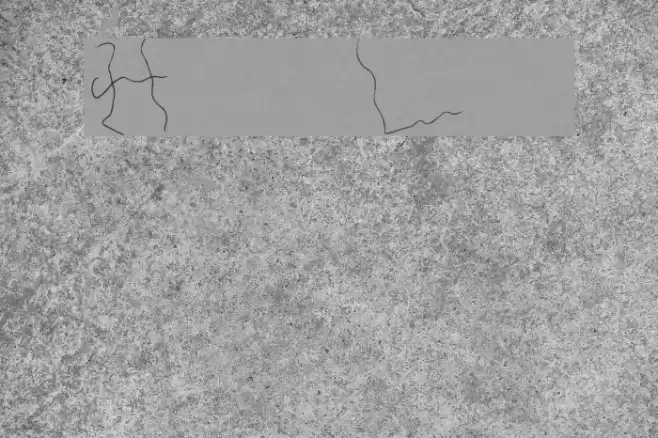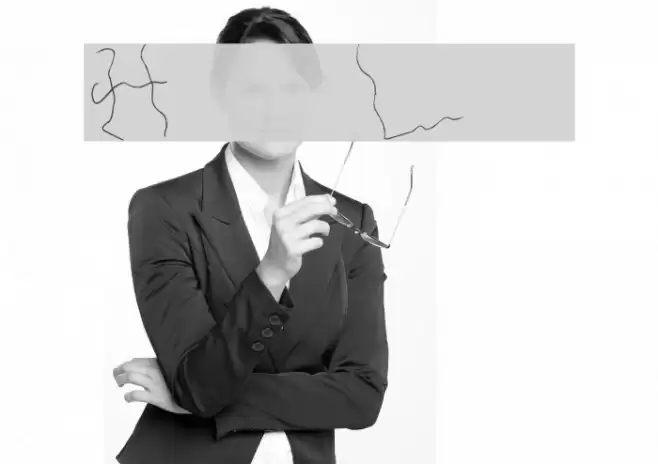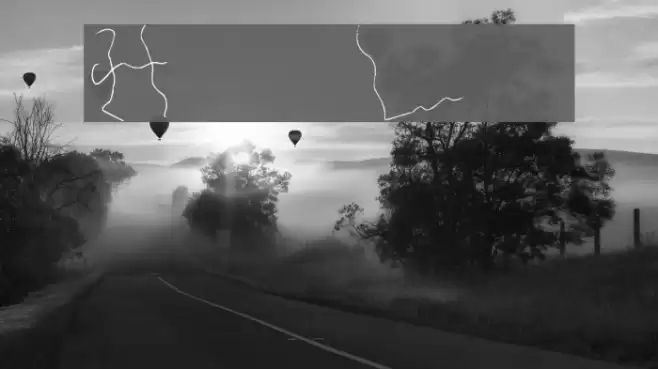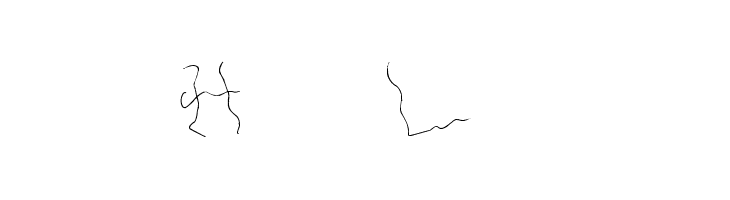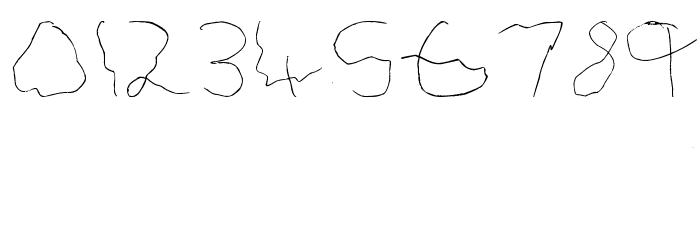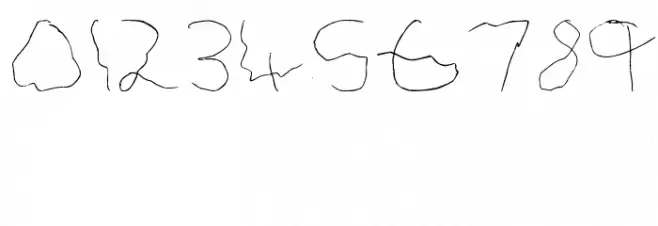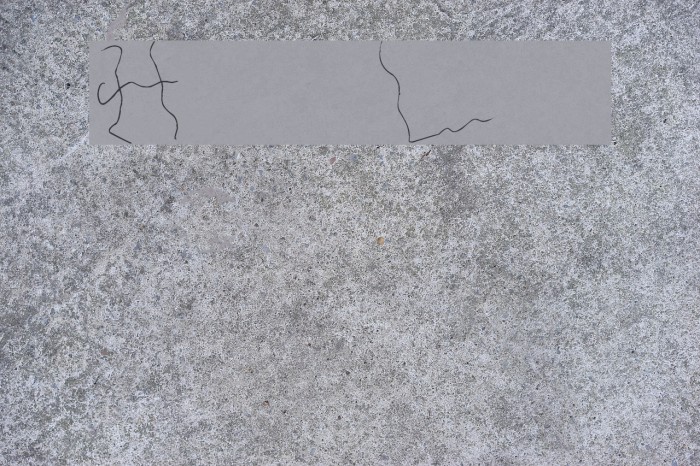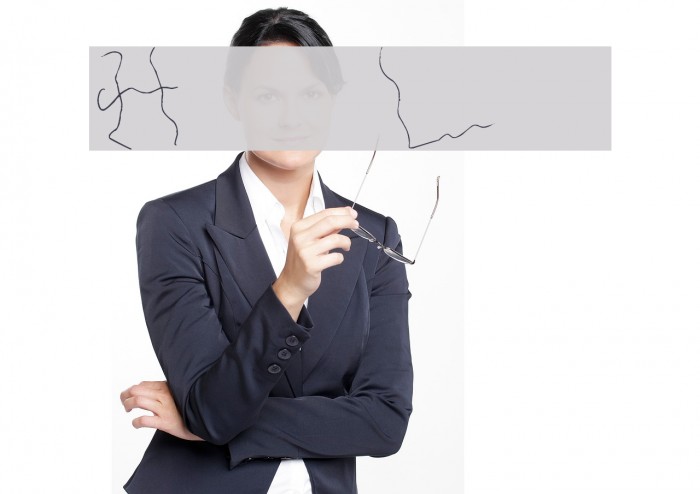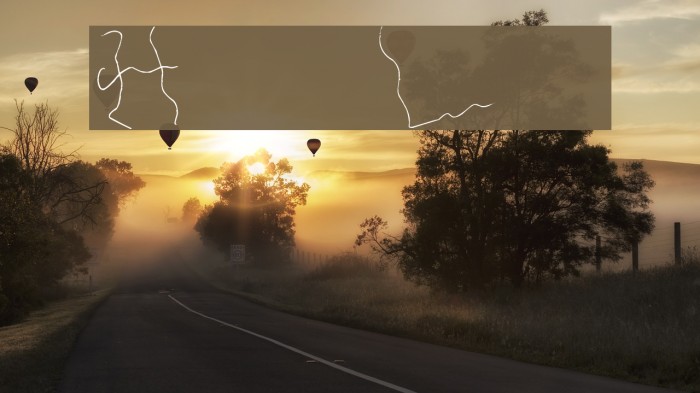
Hair Line Font
Hair Line Description
This font features a unique and whimsical design, characterized by its thin, wavy lines that resemble strands of hair. Each character is crafted with a playful and irregular style, giving it a hand-drawn appearance. The letters and numbers have an organic flow, with curves and twists that create a sense of movement and fluidity. This font's distinctive style makes it stand out, offering a creative and artistic touch to any design project. Its delicate lines and airy feel make it suitable for projects that require a light and imaginative aesthetic.
A whimsical, hand-drawn font with thin, wavy lines and an organic, playful style from Uncategorized fonts.
- Proposed Projects: Ideal for artistic projects, children's books, creative branding, and whimsical invitations.
- Weight: Light
- Use Case: Logos, Headlines, Artistic projects